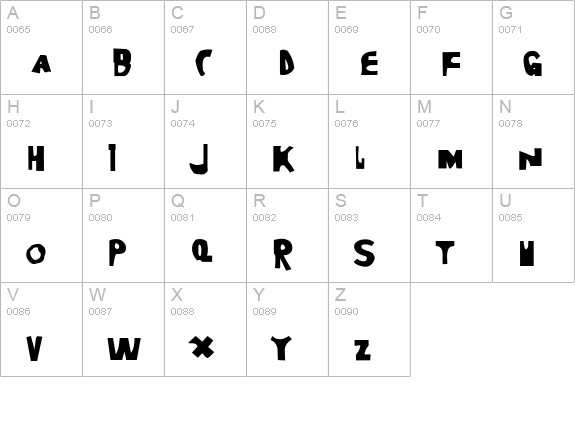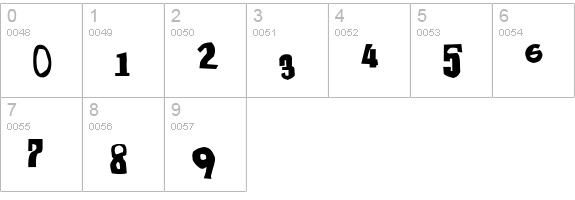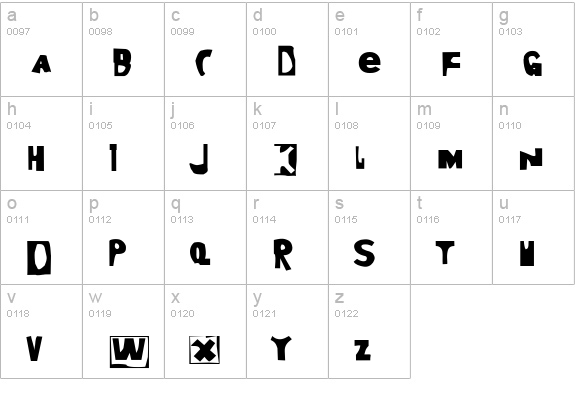
Moore899-BoldA Font Details
Moore899-BoldA font is a striking and modern typeface that exudes confidence and elegance. With its bold weight and sleek letterforms, this font is perfect for making a statement in any design project. Whether you're creating eye-catching posters, impactful headlines, or stylish branding materials, Moore899-BoldA is sure to command attention. What's even better is that Moore899-BoldA font is available for free download at FontsMarket.com. This means you can easily access this versatile font and use it in your projects without any cost. Don't miss out on the opportunity to add Moore899-BoldA to your font collection and elevate your designs with its bold and dynamic presence.